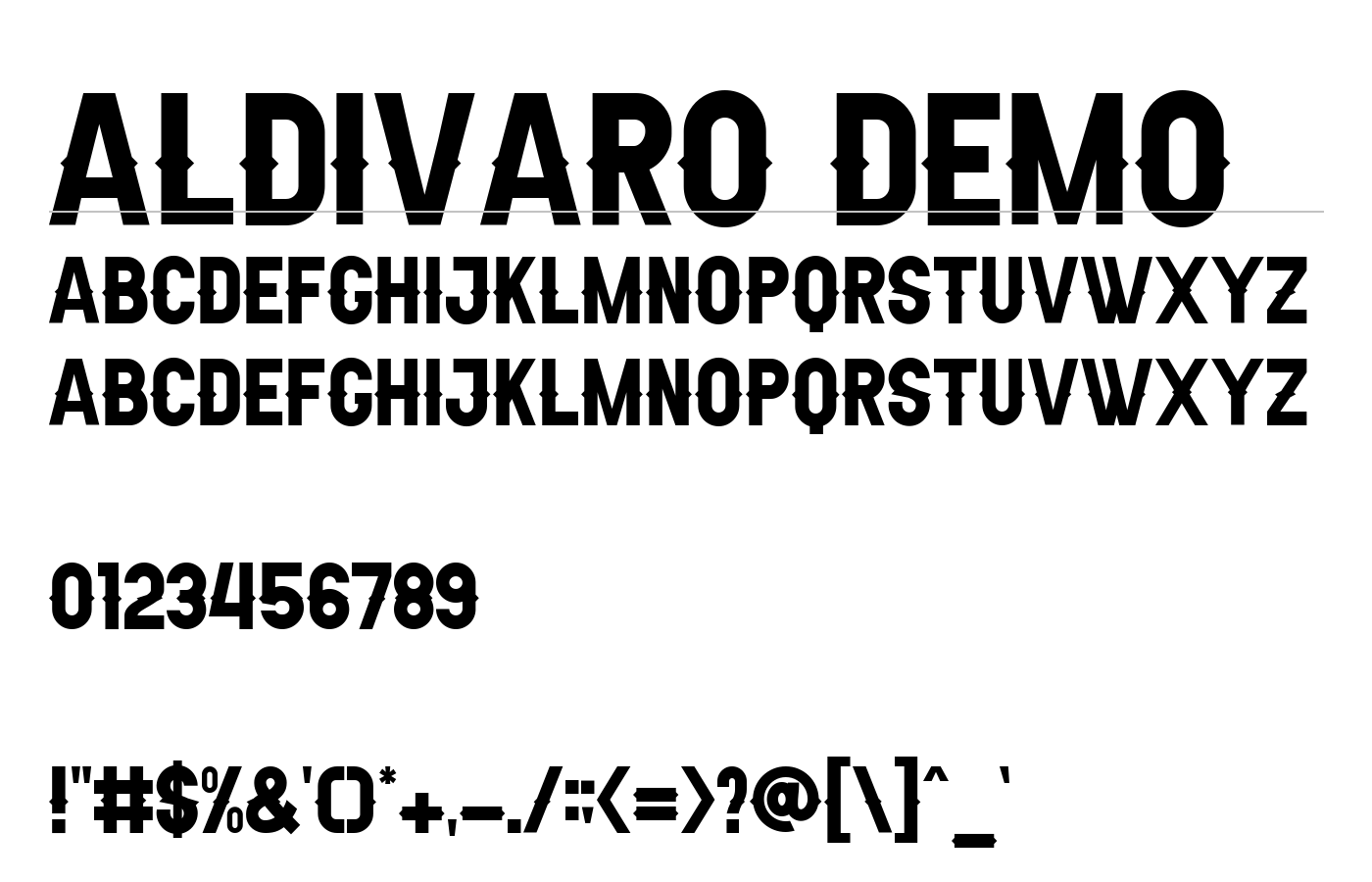
Aldivaro is a bold, condensed sans serif font characterized by sharp, geometric forms with distinctive cut-out notches in the middle of each letter, creating a dynamic and modern aesthetic. Its strong presence and condensed spacing make it perfect for impactful headlines, branding, and display use where a sense of confidence and contemporary style is desired. This font works well in fashion, editorial, and poster designs that aim to stand out with a bold, yet sophisticated look.
Aldivaro Font
About Aldivaro Font
| Font family | Aldivaro Font |
| Designer | Sabrcreative Studio |